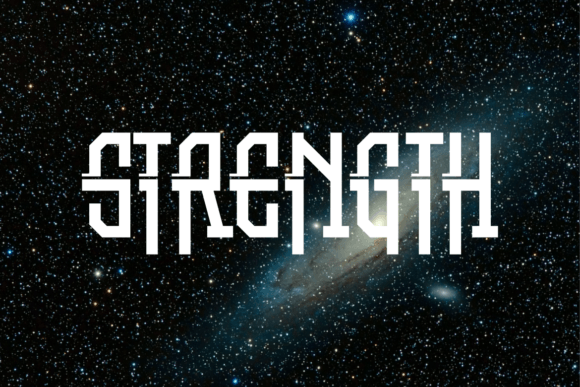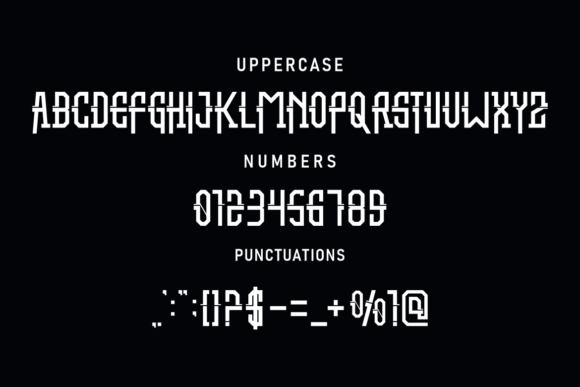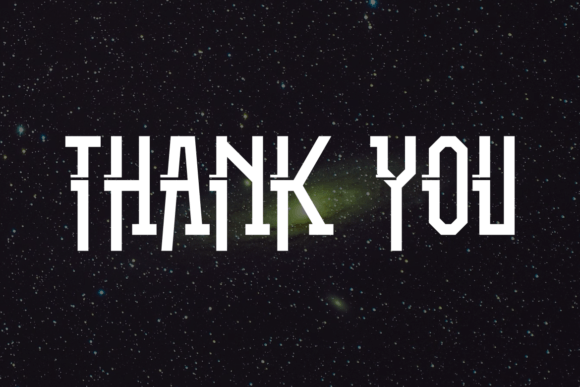
Aeherro Font: Elevate Your Designs with a Cool and Modern Display Font
Aeherro is a cool and modern display font that can add a touch of sophistication and creativity to your designs. With its unique and stylish aesthetic, Aeherro is the perfect choice for designers and crafters looking to make their ideas come alive. In this article, we’ll explore the features and benefits of Aeherro, and how it can be used to elevate your designs.
What is Aeherro Font?
Aeherro is a modern display font designed to make a statement. Its sleek and contemporary design makes it perfect for use in a variety of creative projects, from branding and advertising to packaging and digital media. Aeherro is a versatile font that can be used to add a touch of elegance and sophistication to your designs.
Key Features of Aeherro Font
• Unique and Stylish Aesthetic: Aeherro has a distinctive and stylish aesthetic that sets it apart from other fonts. Its modern design makes it perfect for use in creative projects where you want to make a statement.
• Highly Versatile: Aeherro is a versatile font that can be used in a variety of creative projects, from branding and advertising to packaging and digital media.
• Elegant and Sophisticated: Aeherro is an elegant and sophisticated font that can add a touch of refinement to your designs.
Benefits of Using Aeherro Font
There are many benefits to using Aeherro in your designs. Here are just a few:
• Adds a Touch of Sophistication: Aeherro can add a touch of sophistication and elegance to your designs, making them stand out from the crowd.
• Perfect for Creative Projects: Aeherro is perfect for use in creative projects where you want to make a statement. Its modern design and stylish aesthetic make it ideal for use in branding, advertising, and other creative endeavors.
• Easy to Read: Despite its stylish aesthetic, Aeherro is easy to read, making it perfect for use in digital media and other applications where readability is important.
How to Use Aeherro Font
Using Aeherro in your designs is easy. Here are a few tips to get you started:
• Use it as a Display Font: Aeherro is perfect for use as a display font, where it can be used to add a touch of elegance and sophistication to your designs.
• Experiment with Different Sizes and Colors: Aeherro looks great in a variety of sizes and colors. Experiment with different combinations to find the one that works best for your design.
• Pair it with Other Fonts: Aeherro can be paired with other fonts to create a unique and stylish aesthetic. Try pairing it with a sans-serif font for a modern look.
Author prayoga_std
Aeherro is a cool and modern display font that can add a touch of sophistication and elegance to your designs. With its unique and stylish aesthetic, Aeherro is the perfect choice for designers and crafters looking to make their ideas come alive. Whether you’re working on a branding project, creating a digital design, or crafting a piece of art, Aeherro is a versatile font that can help you achieve your creative vision.
Tips and Tricks for Using Aeherro Font
Here are a few tips and tricks for using Aeherro in your designs:
• Use it sparingly: Aeherro is a bold font, so use it sparingly to avoid overwhelming your design.
• Experiment with different effects: Aeherro looks great with different effects, such as shadows and gradients. Experiment with different effects to find the one that works best for your design.
• Make it your own: Aeherro is a versatile font, so don’t be afraid to make it your own. Experiment with different styles and effects to create a unique look.